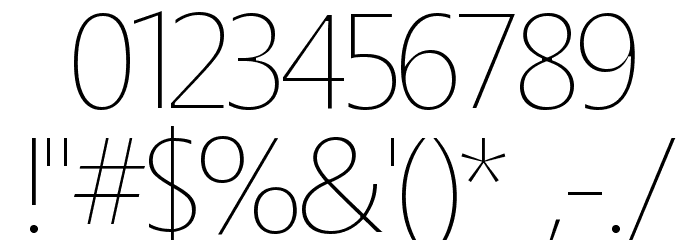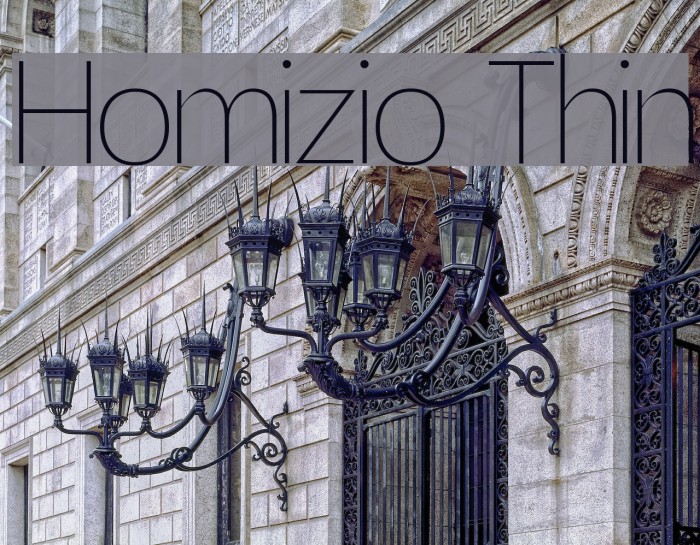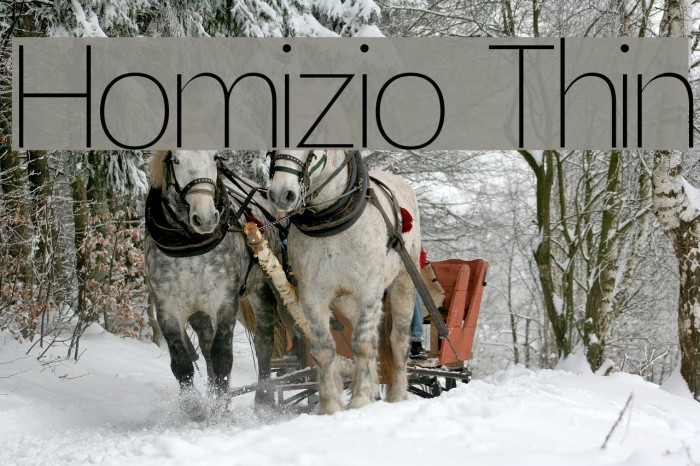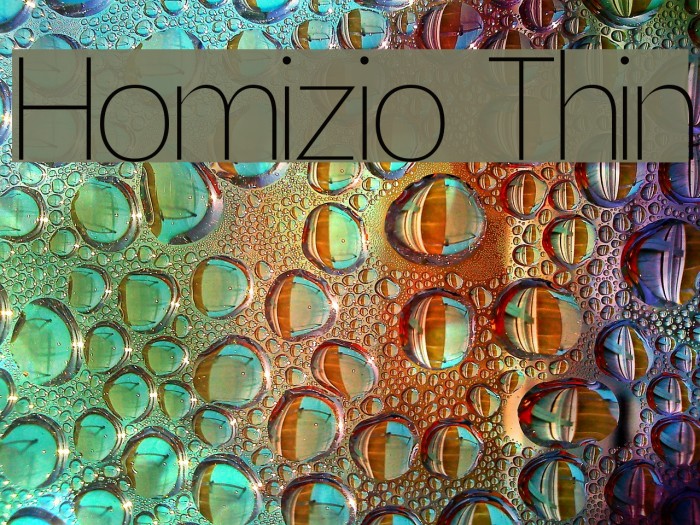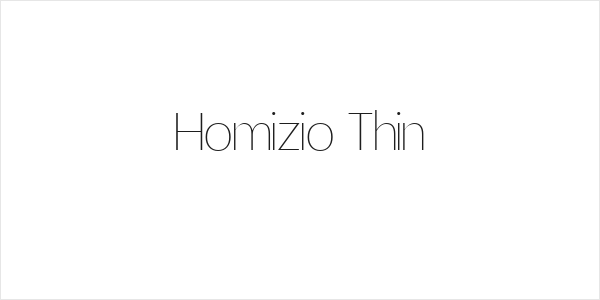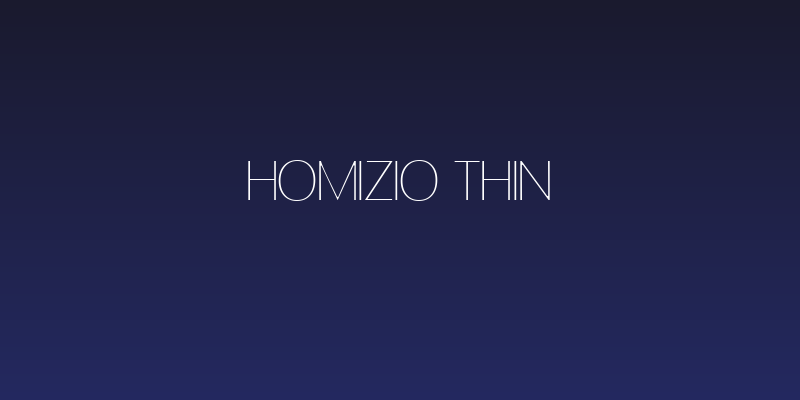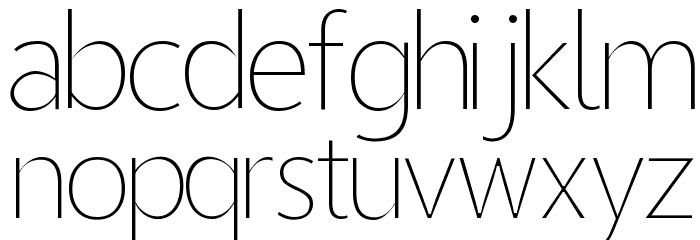
Homizio Thin Font
Homizio Thin Description
This font features a sleek and modern design with clean, thin lines that create an elegant and minimalist appearance. The characters are well-proportioned, offering a sense of balance and harmony. Uppercase and lowercase letters are distinct yet cohesive, while numerals and special characters maintain the same refined aesthetic. The font's simplicity and clarity make it highly legible, even at smaller sizes, making it versatile for various design applications.
| Proposed Projects | Ideal for branding, editorial design, websites, and minimalist graphic design projects. |